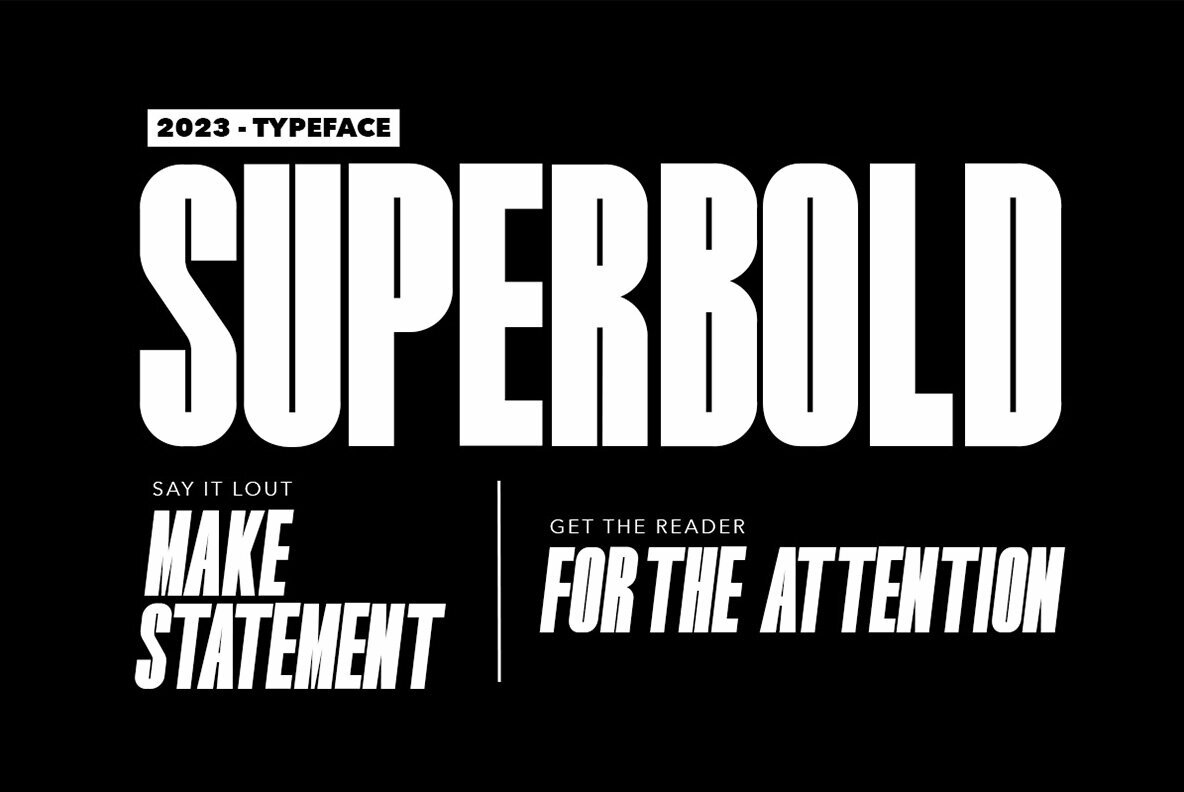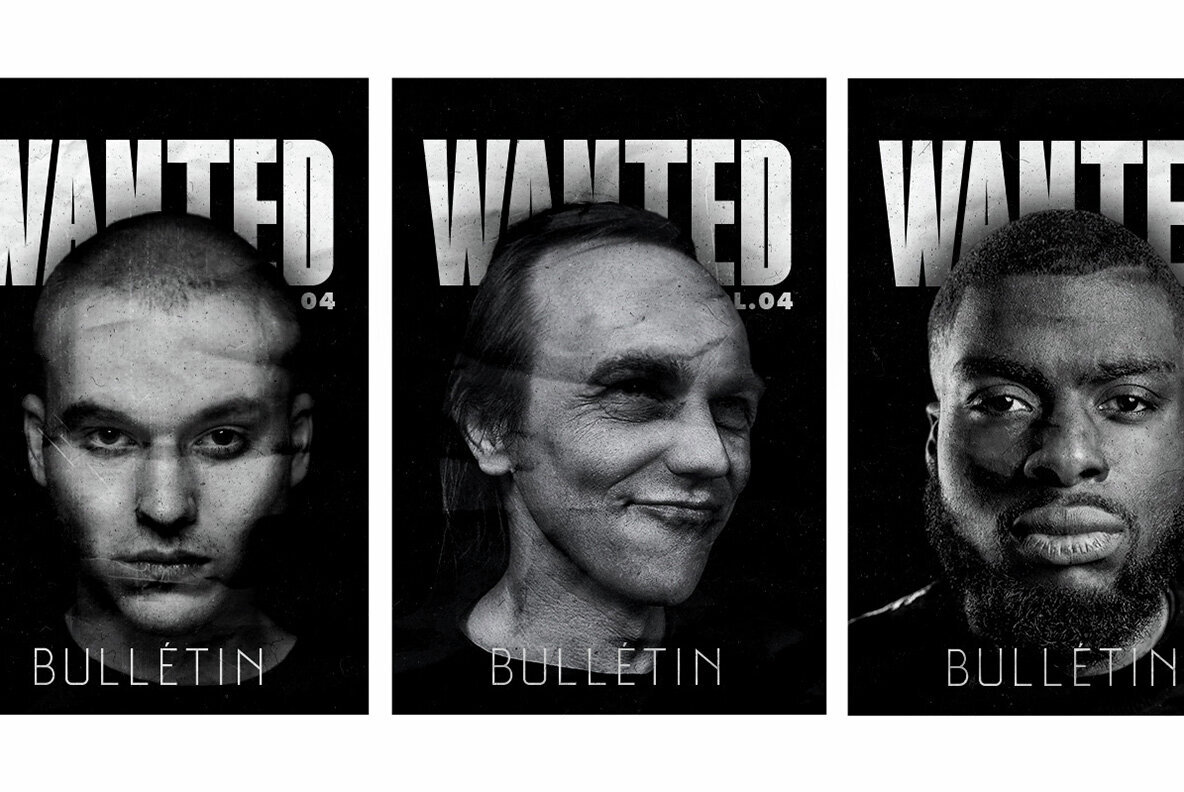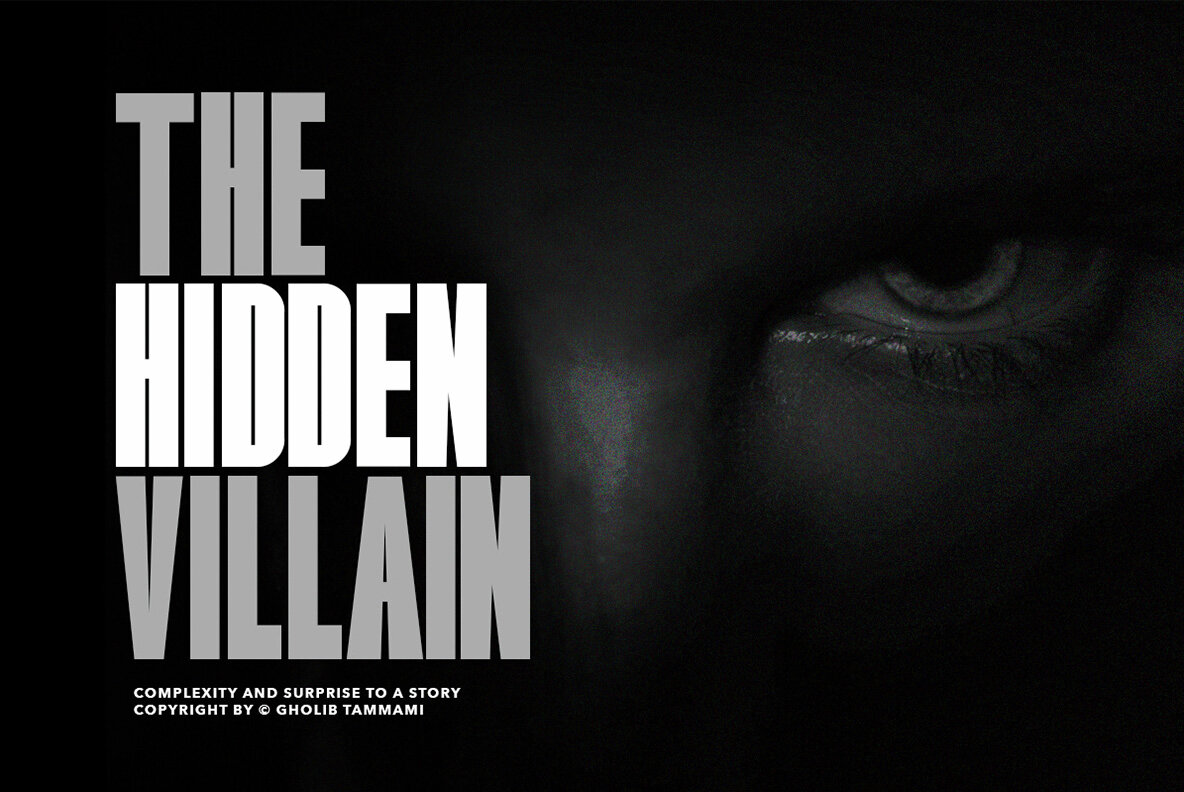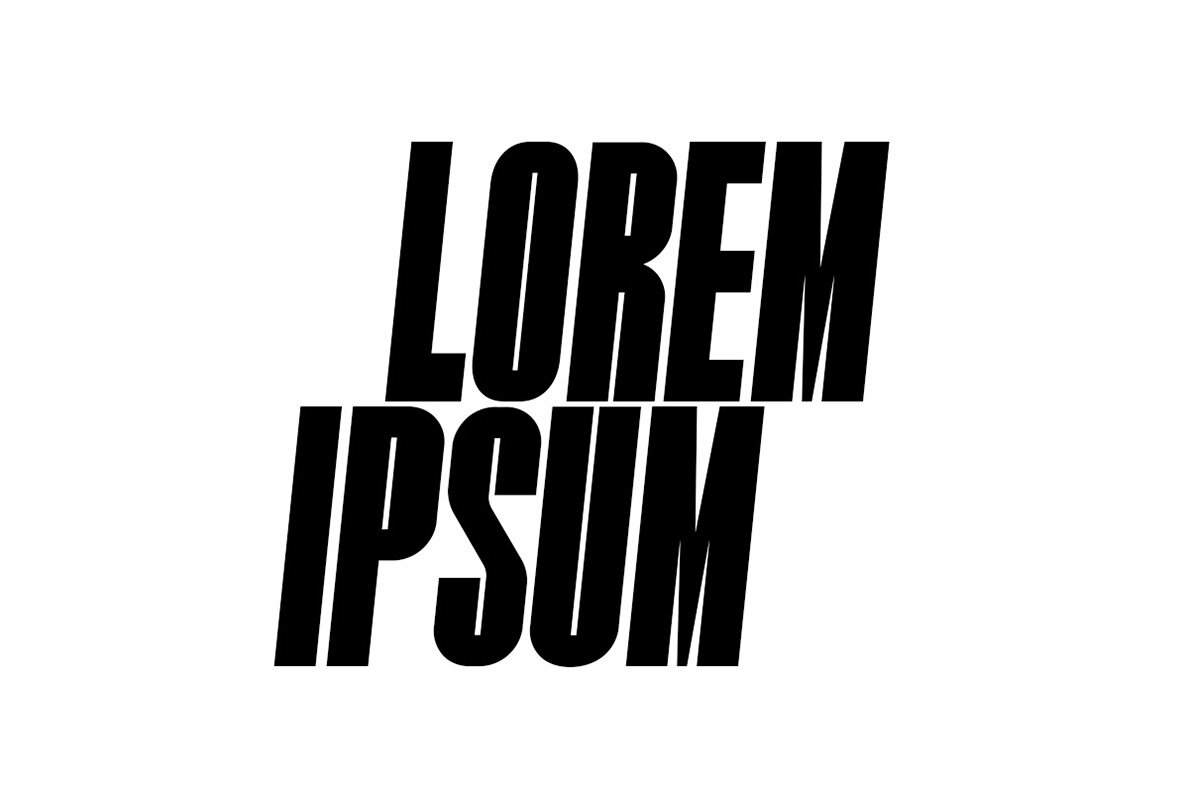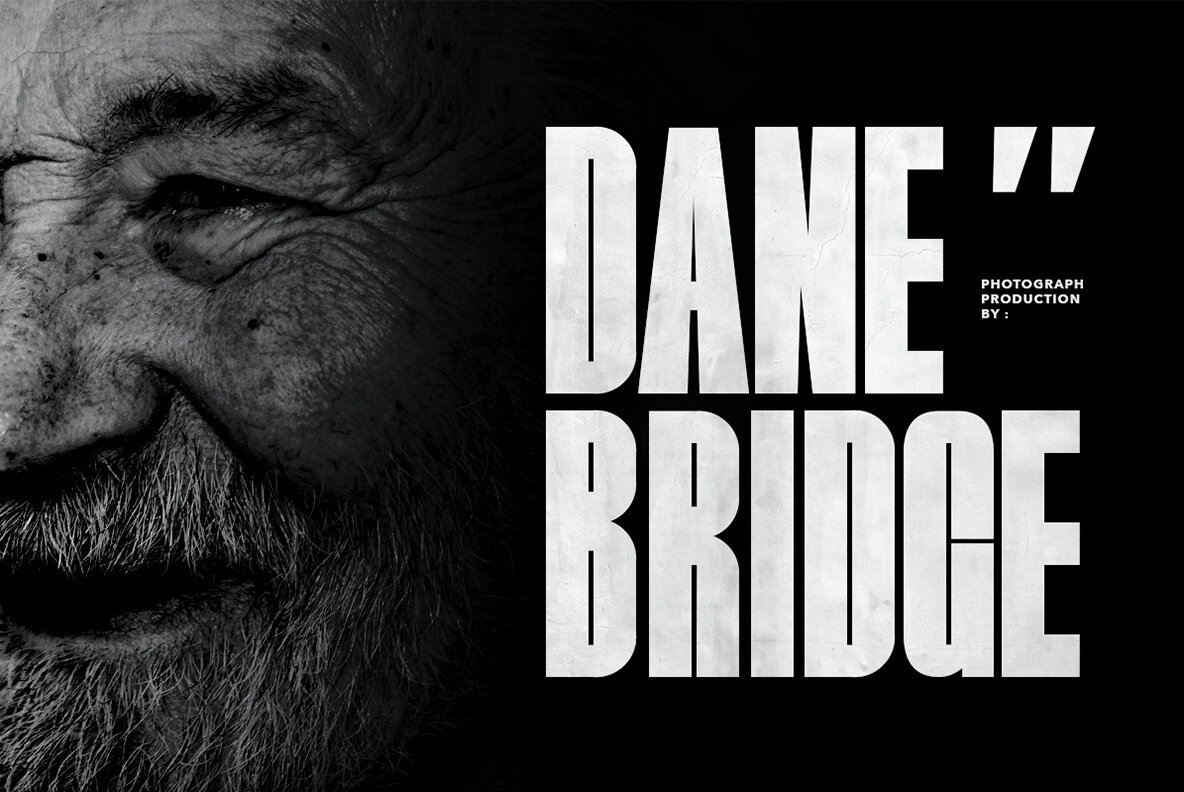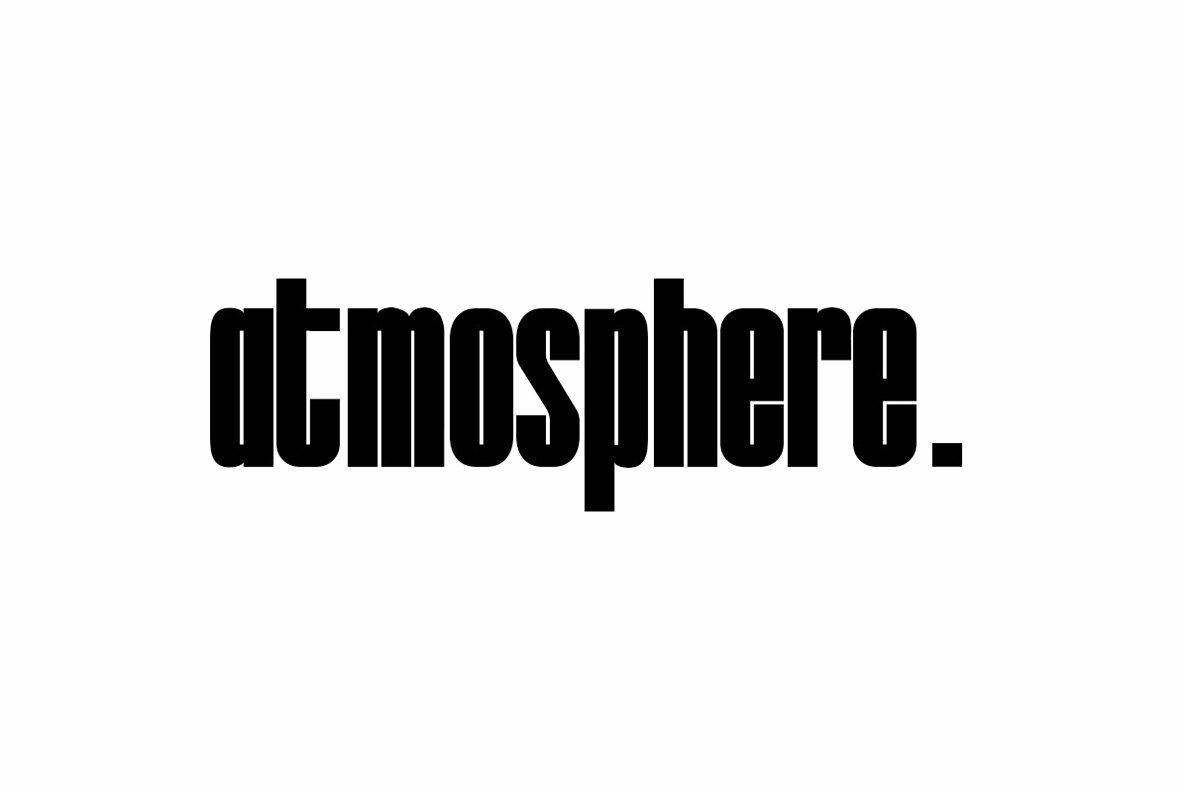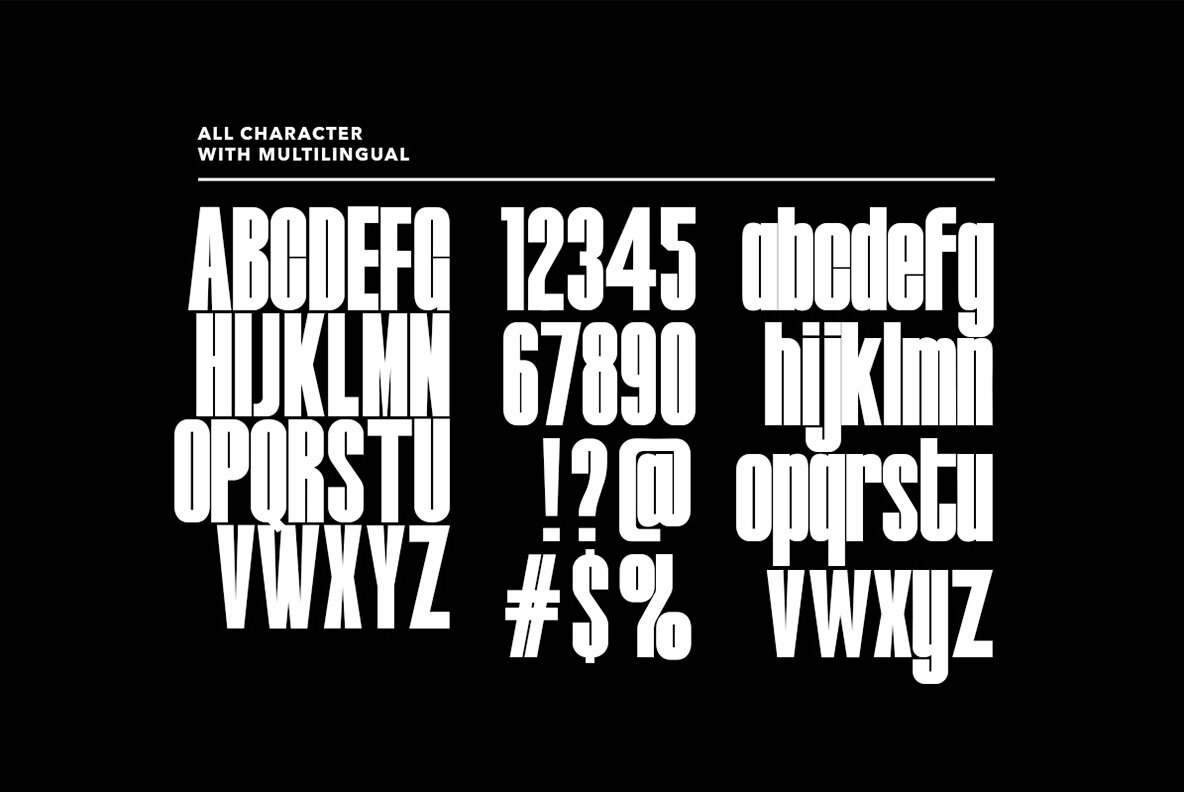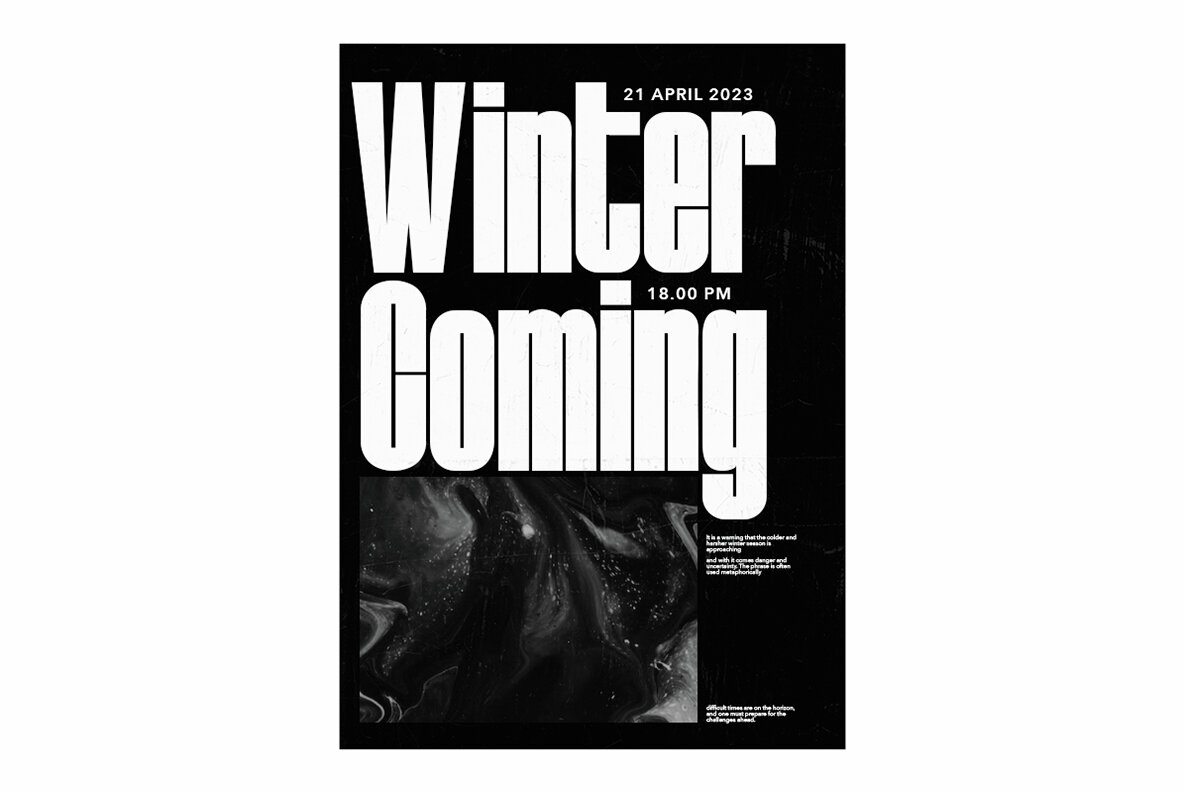
Tamaran Font
Tamaran Regular
Tamaran is a striking and commanding display font that boasts a bold and assertive presence. With a modern sans serif design, this typeface is perfect for grabbing attention and making a bold statement in any headline or magazine layout.Tamaran: Bold Display Font With Modern Appeal